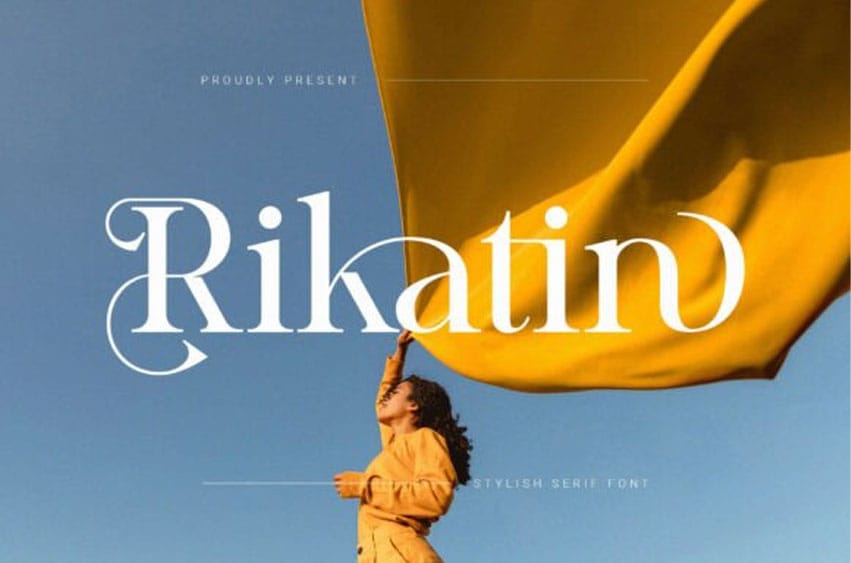
Rikatin Font is a chic and contemporary serif font with a luxurious flair. Defined by elegant curves, high contrast strokes, and refined flourishes, Rikatin blends modern sophistication with timeless beauty.
Ideal for fashion branding, editorial layouts, logo design, and upscale product packaging, this font radiates class and creativity. Each letterform is crafted to make a bold yet graceful impression.